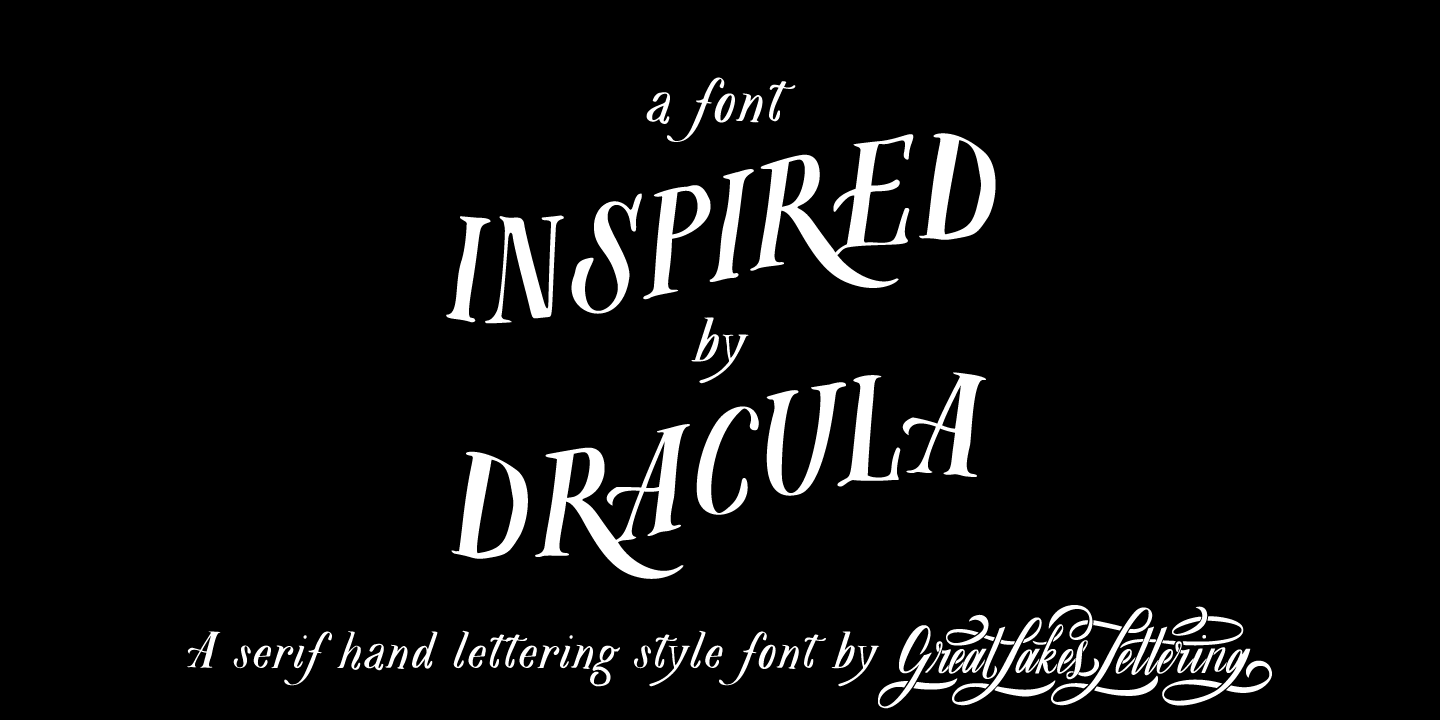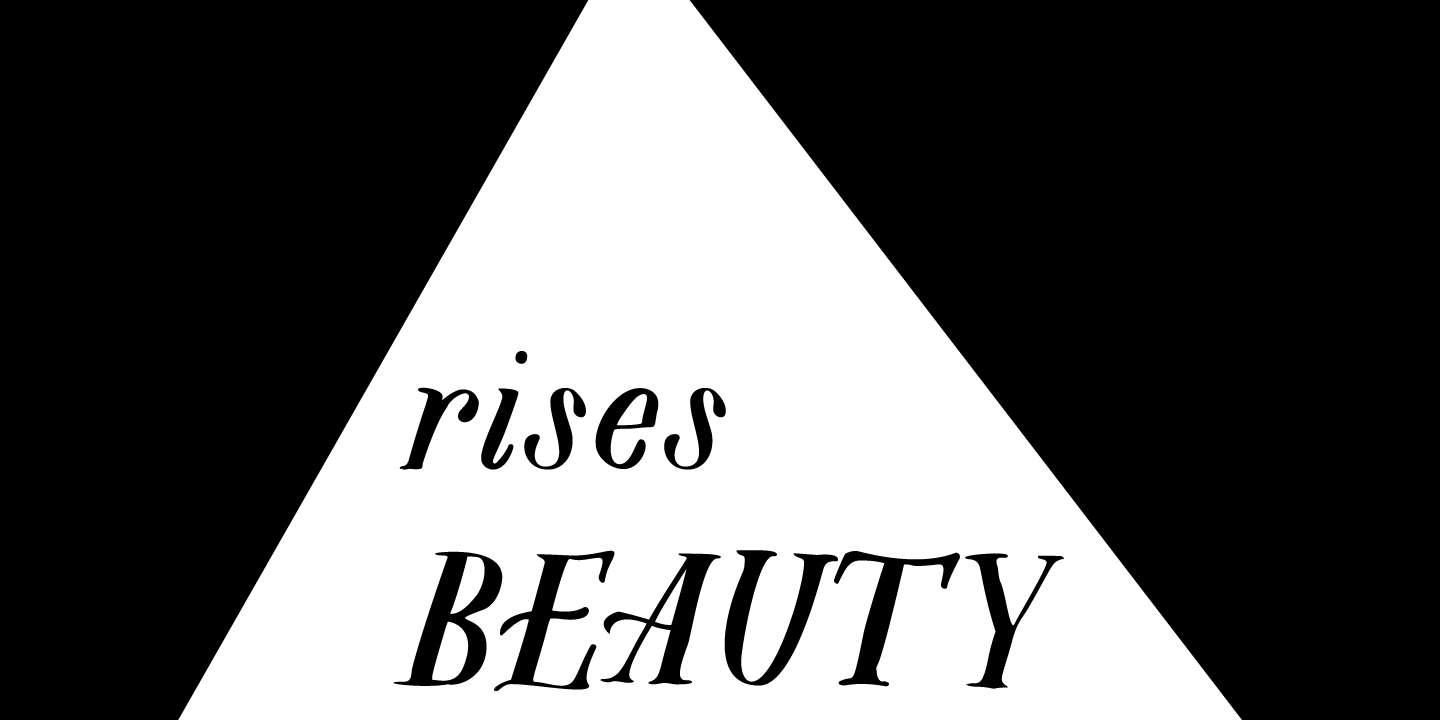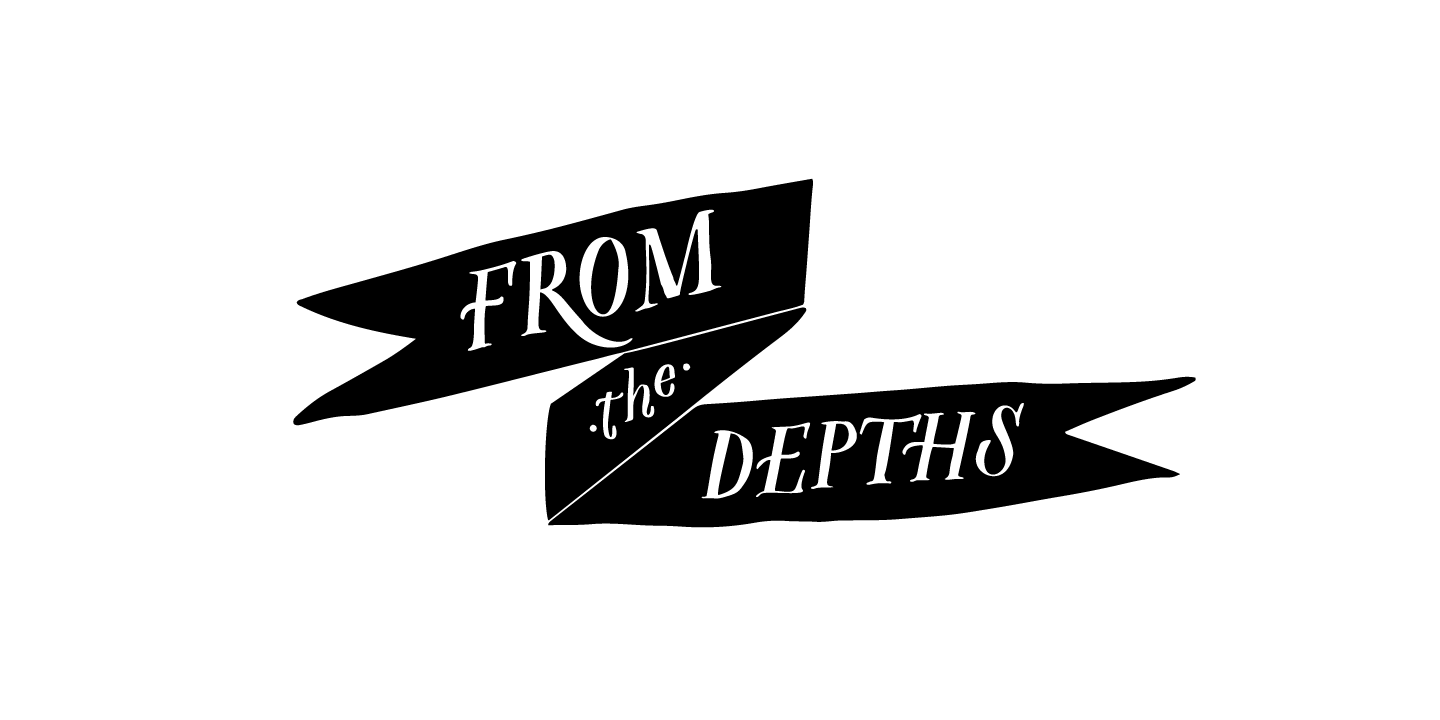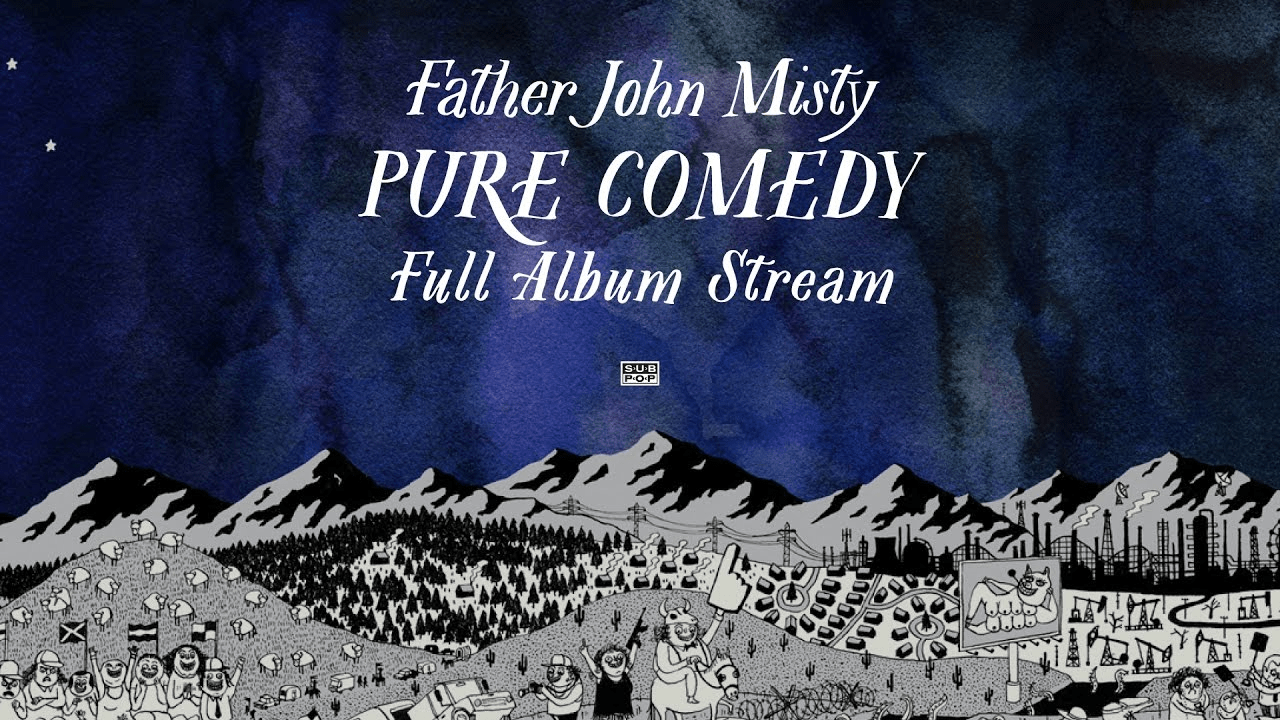
About Helsing
Helsing is a serif style font inspired by Bram Stoker\’s 1897 Dracula as well as Edward Gorey\’s rendition of the story. Helsing is characterized by his slighting skewed baseline, subtle texture, thick and thin contrasts, and decorative legs. Made as a…